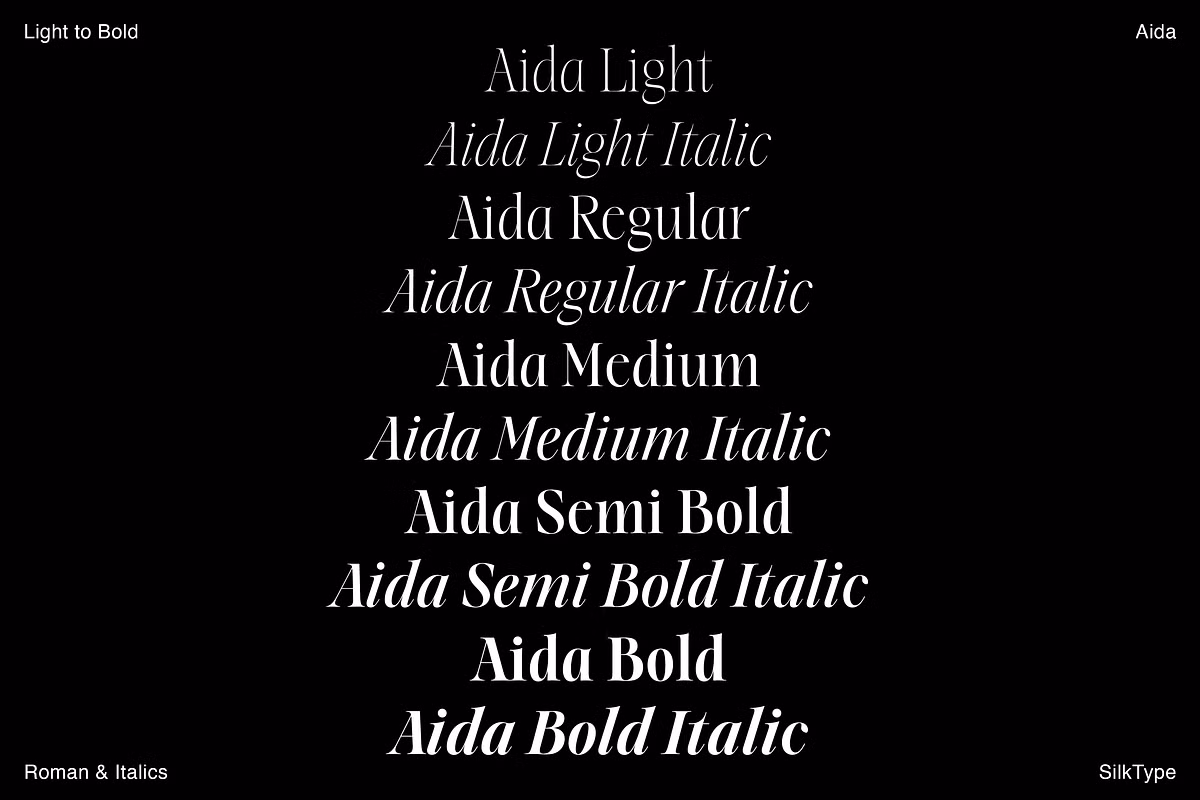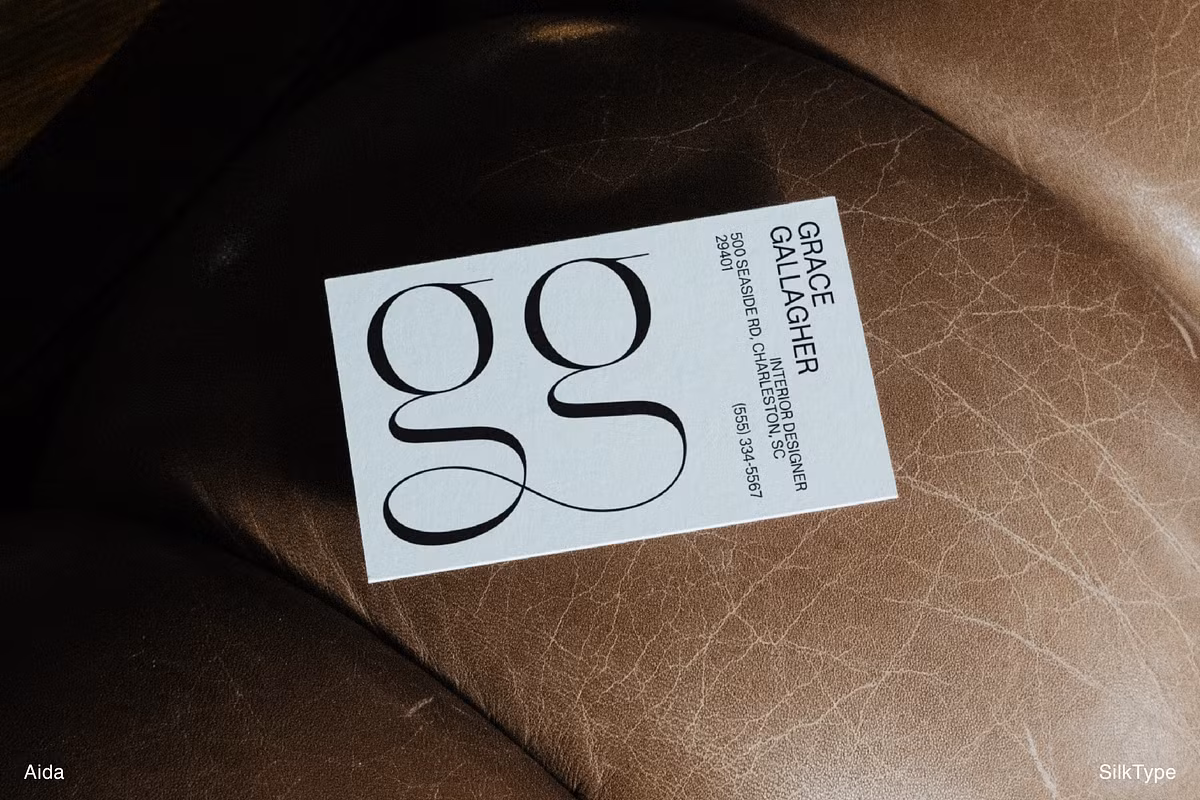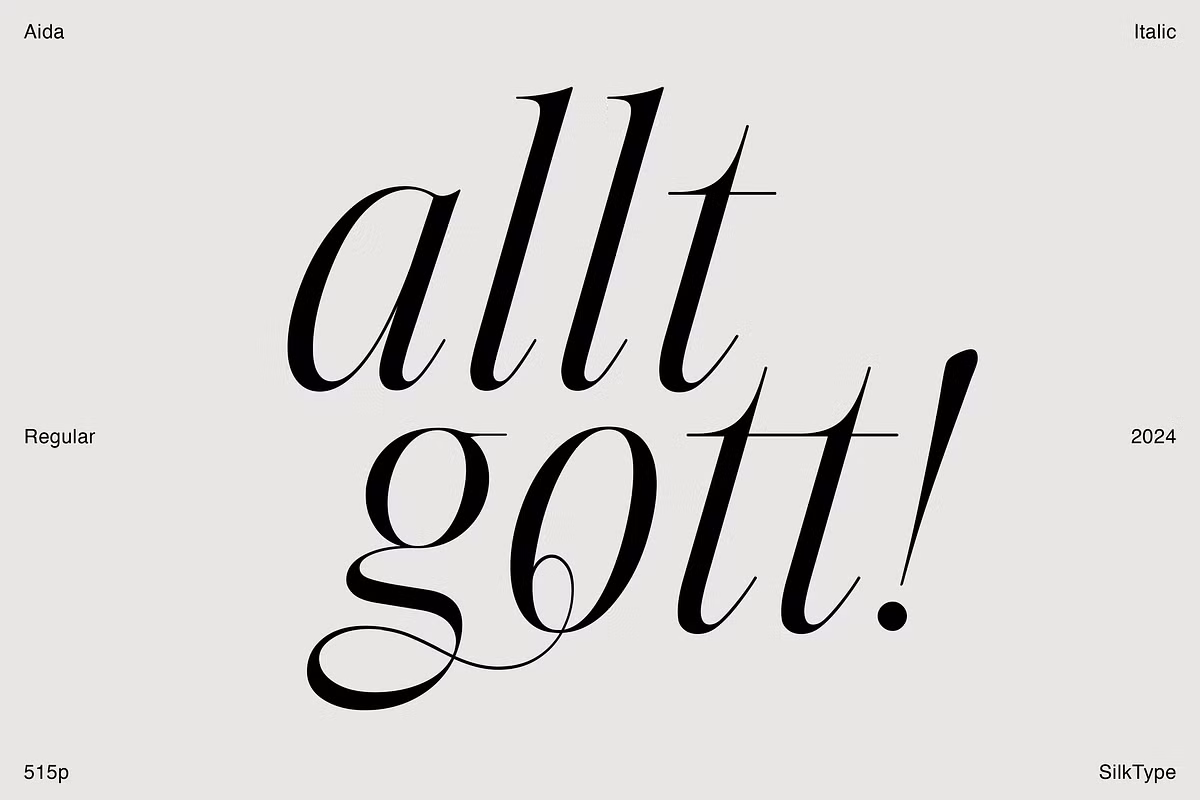
Aida: High-Contrast Ligature Serif Typeface for Elegant Design
Aida is a high contrast display font. Aida looks clean and stylish. Aida is carefully designed to fit the design. Aida makes your work stand out. Aida’s unique features include serifs and fine hairlines. Aida’s features give a look. Aida works well for the headlines, fashion branding and editorial layouts. I have used Aida. I see that Aida adds strength to my designs. Aida also keeps a sense of grace.
Design Style of Aida
When I look at Aida I notice the contrast. The high contrast makes the letters stand out. Aida uses strokes and thick strokes. The thin strokes and thick strokes create a tension that catches the eye. Aida adds serifs and hairline details. The thin serifs and hairlines give Aida a light feel. The light feel lets Aida look clean and simple. Aida feels both modern and timeless.
Aida’s ligature style further elevates its design. With more than one hundred ligatures and alternates, Aida gives you many options to add personality and flow to your designs. This flexibility lets you shape the typography to match the mood and tone of your project whether you want a look that’s sleek and minimal or a look that is expressive and bold. I find Aida useful for setting the feel in my work.
Character Sets and Styles
Aida has ten styles. Aida offers Light to weights, in both Italic versions so you can pick the right look for any project. Aida lets you choose the weight and style that fits the project you are working on. When I work on a project I can just pick the style I need from Aida. Aida can give you a look for the piece or a bold look for the advertisement.
I see that the character set includes glyphs. I see that the character set supports languages and many typographic needs. I see that the character set lets Aida be used in settings. I see that the character set makes Aida a flexible choice for designers who work on platforms and mediums.
Use Cases for Aida
I find Aida flexible so Aida works in many of the design applications. Here are some use cases for Aida:
- Fashion Branding: Aida looks elegant and refined. I find Aida a perfect choice for fashion brands that want to show class and luxury.
- Layouts: Editorial Layouts have a high contrast design. The high contrast design improves readability and visual appeal in magazines and articles.
- Event Invitations: Aida can turn Event Invitations into art, setting the tone for events and celebrations.
- Product Packaging: The unique look of Aida lifts product packaging, making it stand out on shelves and catching the eye of buyers.
- Advertising Campaigns: In print or digital formats, Aida’s bold styles create headlines that grab attention.
I see that in each of these applications, Aida’s unique characteristics let designers create designs that are striking and easy to remember. I see that Aida’s unique characteristics make those designs connect with the audience.
Pairing Suggestions for Aida
I love typography. When I look at typography the pairing of fonts can improve the design. Here are the pairing suggestions that work well with Aida:
- Sans Serif Companions: Pairing Aida with a sans serif font like Montserrat or Open Sans creates a contrast that adds clarity.
- Classic Serif Fonts: Pairing Aida with a serif font such as Garamond or Baskerville gives a timeless look.
- Script Fonts: Pairing Aida with a flowing script font adds creativity to invitations or branding.
These pairings let you use Aida’s strengths while bringing in fonts that increase the design’s harmony and visual interest.